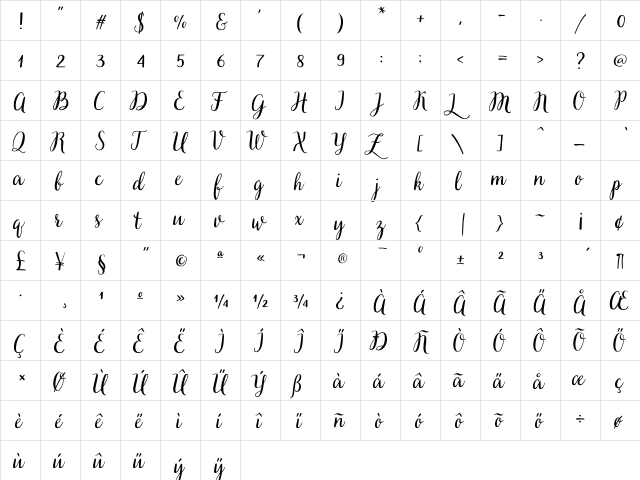
DesignerElena Genova
Design Context for VeryBerryPro-Regular Typeface
VeryBerryPro-Regular is a composed and adaptable typeface that performs quietly and consistently across a wide range of design contexts.